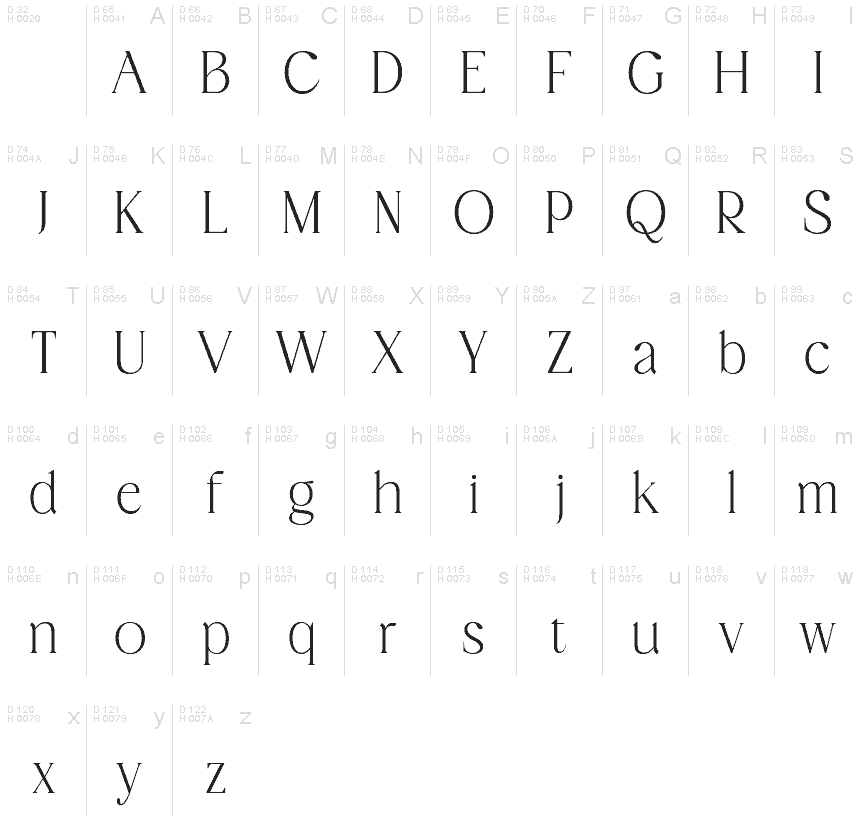
CS Boris Demo Regular
CS Boris font by Craft Supply Co. is a sleek and elegant serif font with slightly modern touches despite the visible classic influences. The beautiful font has an attractive presence, a careful balance between contrasting details that make it pop especially when given enough size and spacing.
There are numerous projects for applying CS Boris: books, magazines, logos, branding applications in general, large posters, headlines of any kind including online or printed newspapers etc. Feel free to use this premium looking font for everything that requires a tone of seriousness, professionalism or even luxury.